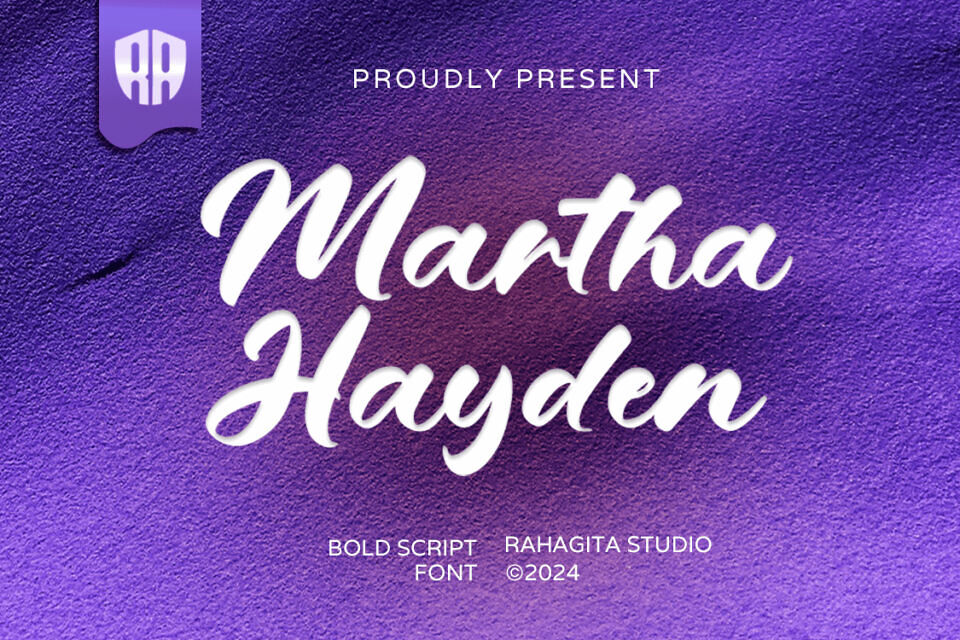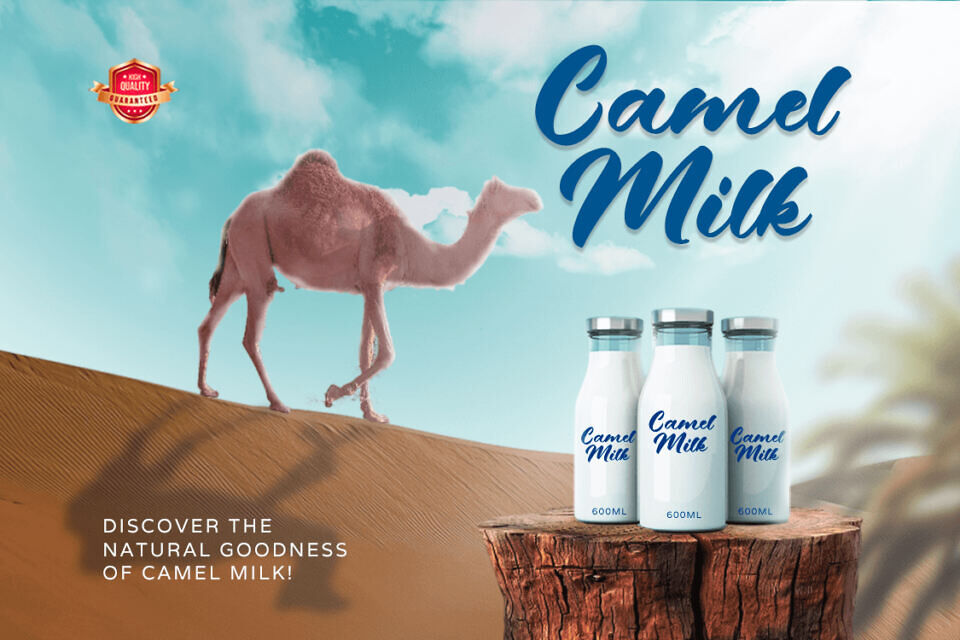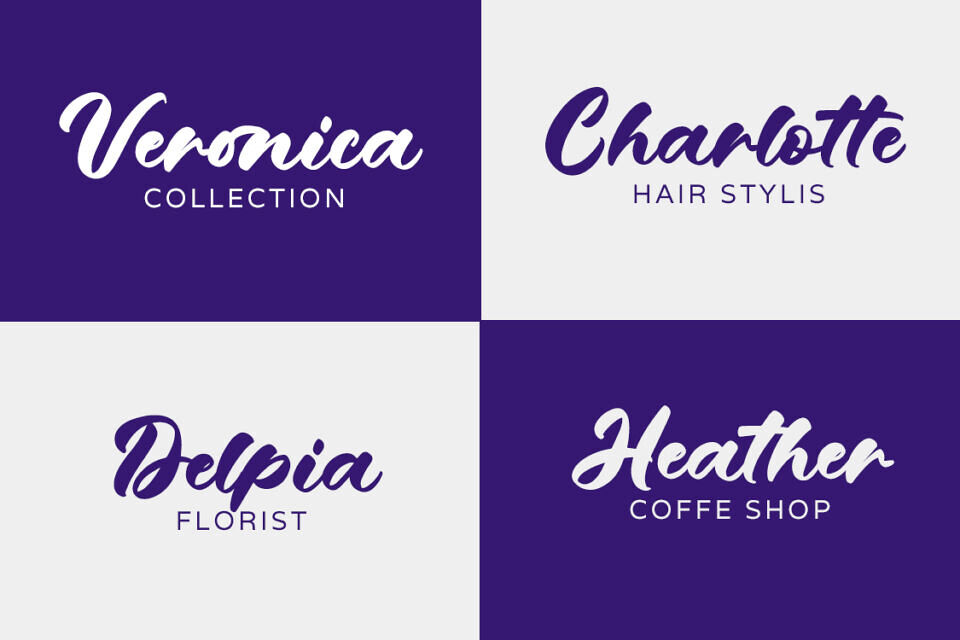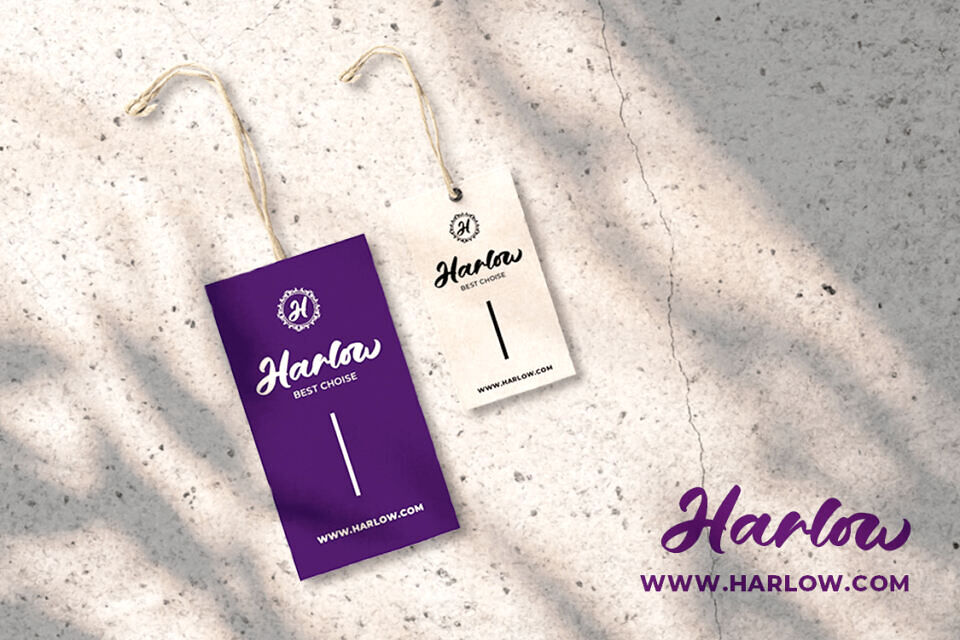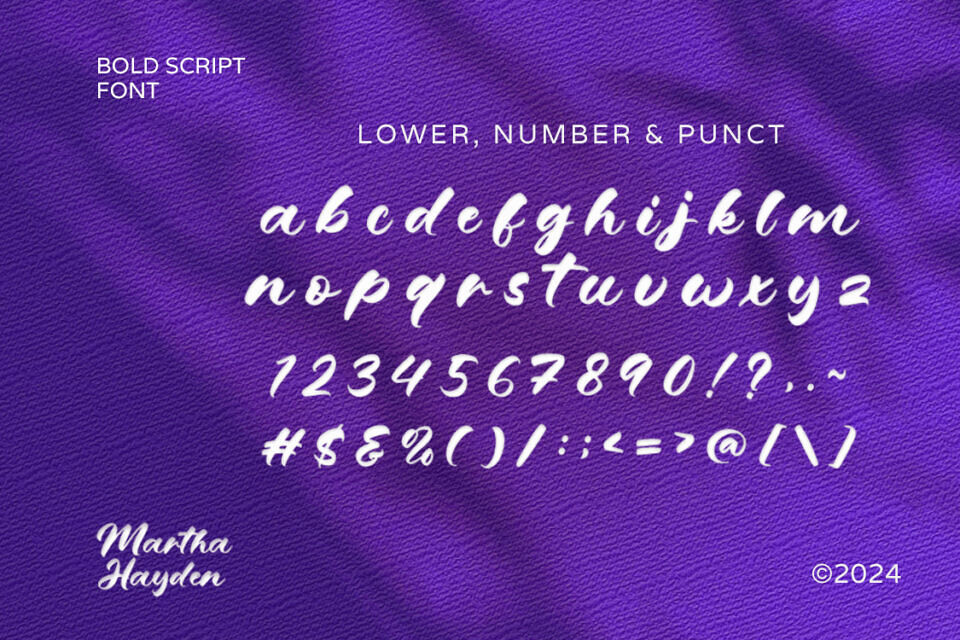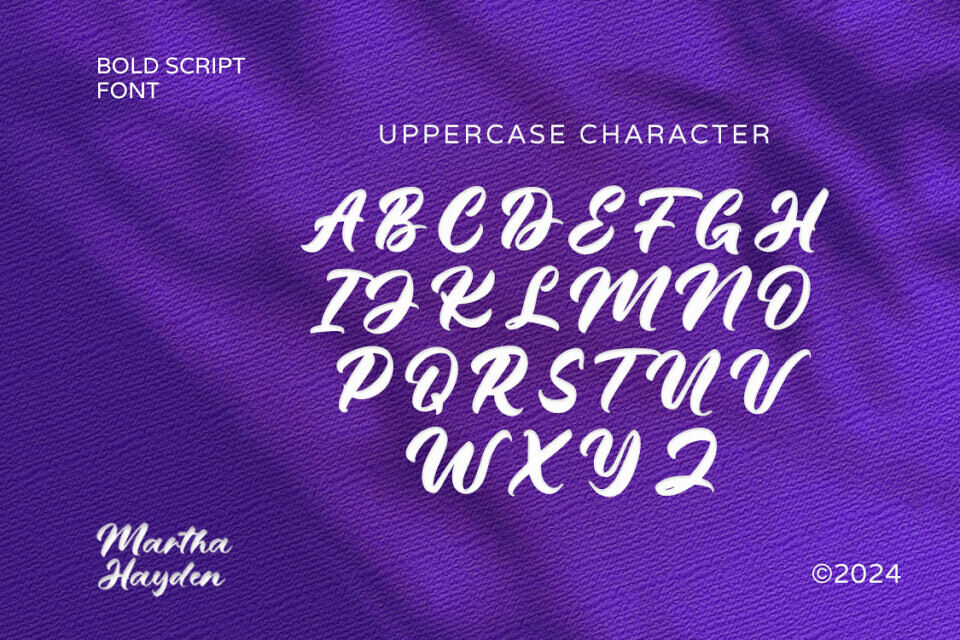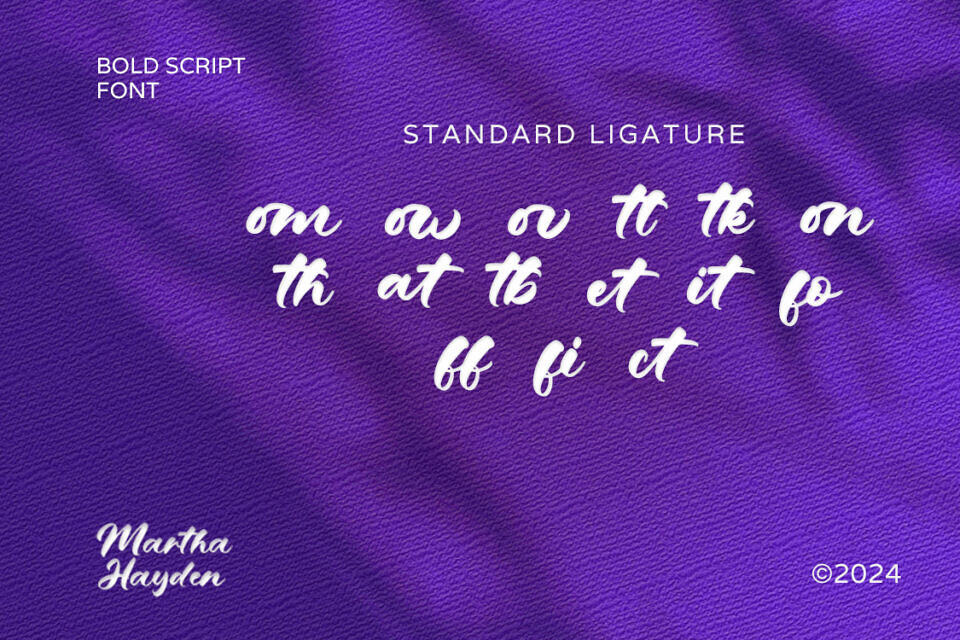
Martha Hayden Font
Martha Hayden is a captivating bold script font that brings elegance and flair to your designs. Perfect for book titles, logos, flyers, branding, banners, crafting, and invitations, this font features graceful curves and a robust presence.
Its versatile style enhances any project, adding sophistication and charm. With Martha Hayden, your creations will stand out, leaving a lasting impression on your audience. Ideal for both digital and print, this font is your go-to choice for impactful and stylish designs.